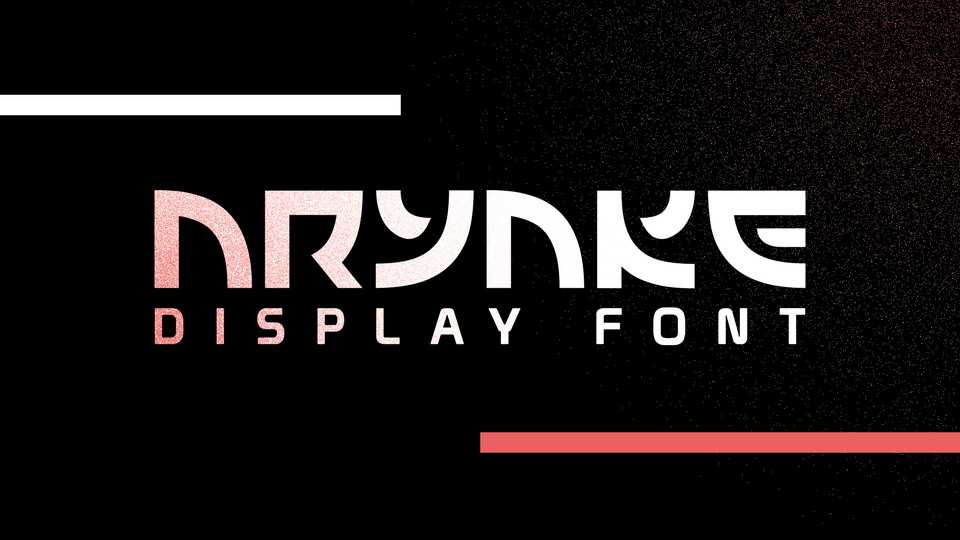
Aryake Font › Fontesk – Download Grátis
Download Aryake font, a display typeface designed to commemorate and embrace various visual styles over the decades; maintaining a simple construct under strict, yet playful, themes.